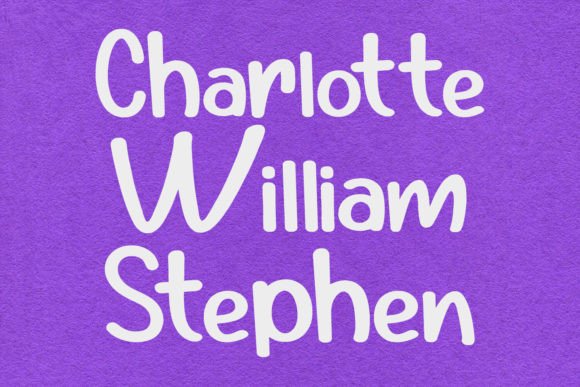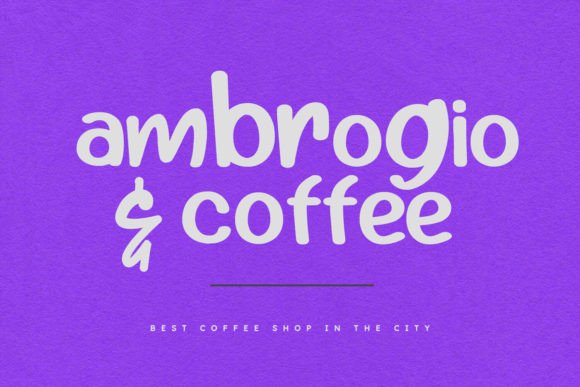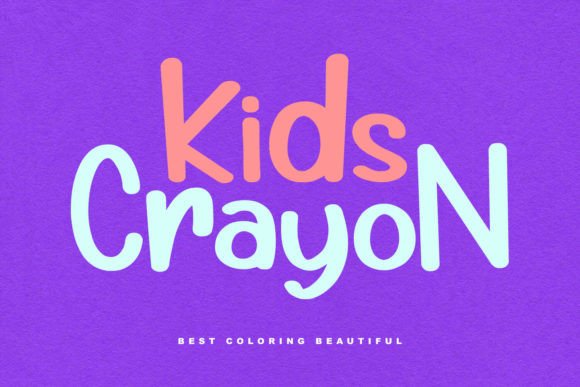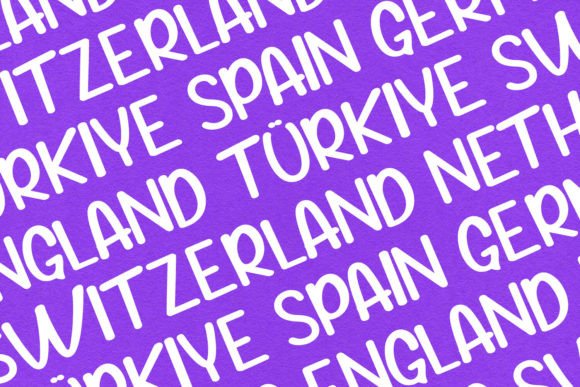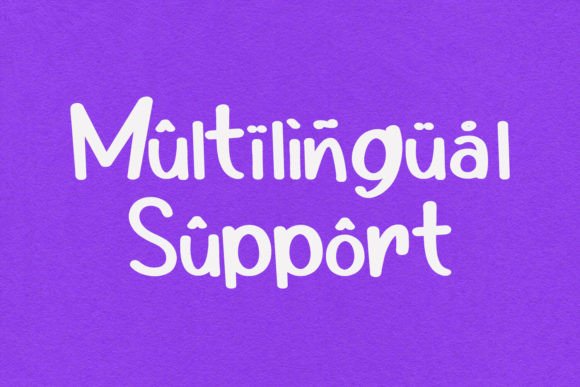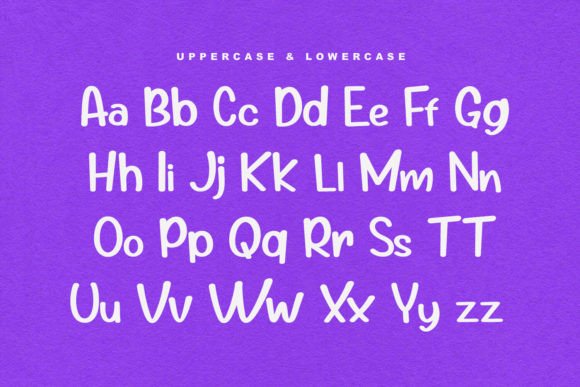
Introduction to Omak Font Font
Fonts play a crucial role in design, and the Omak Font font is a typeface that brings both character and versatility to any project. Whether you’re working on a branding project, a website, or a print design, the Omak Font font offers a unique style that can elevate your work.
Omak is a playful, handmade display font that features fun and unique characters.
It includes special ligatures, making the letters connect smoothly for a more creative and lively look Perfect for adding a cheerful touch to any design.
Key Features of Omak Font Font
Why Choose Omak Font Font?
The Omak Font font is more than just a typeface – it’s a design tool that helps you communicate your message with style and clarity. Its unique character set and versatile design make it suitable for a wide range of applications, from elegant invitations to bold headlines.
With its carefully crafted letterforms and balanced proportions, the Omak Font font ensures readability and visual appeal across all mediums.
What makes Omak Font font special?
The Omak Font font stands out with its unique design, exceptional readability, and versatility across various design applications.